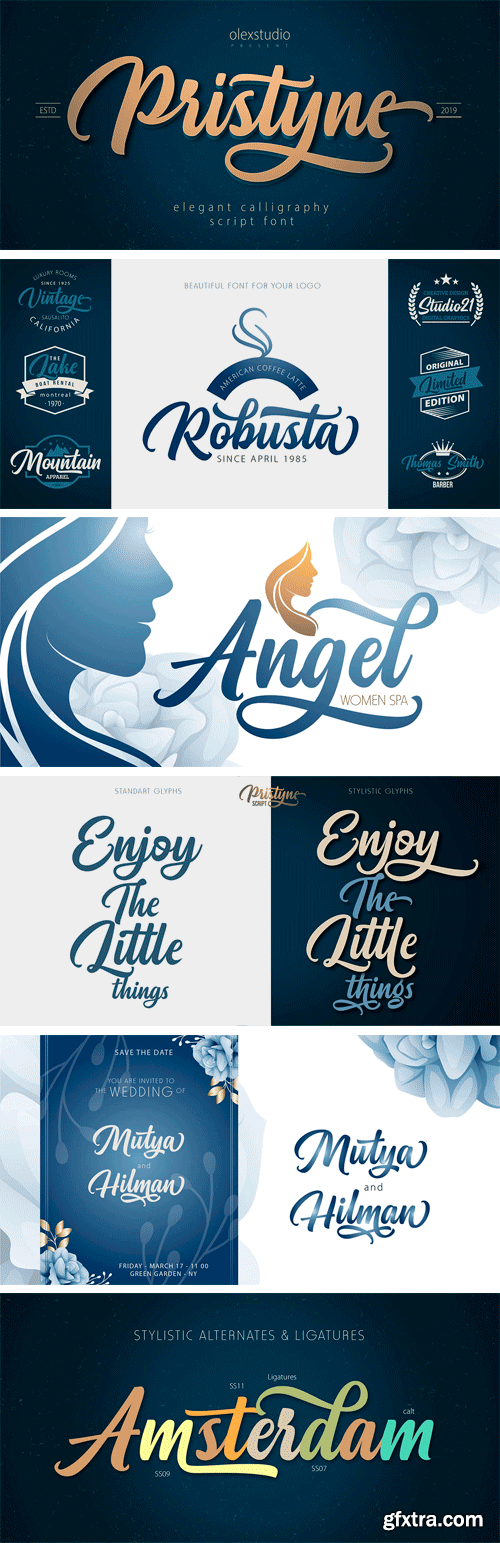
普利斯特奈字体
PRISTYNE script is a beautiful, modern, hand-lettered script. This font will look gorgeous on all your designs, wedding invites, branding materials, logos, t-shirts, posters, business cards, quotes and all other design projects. PRISTYNE script contains standard characters, lowercase, stylistic alternates, uppercase, numbers, punctuation, ligatures and international glyphs.